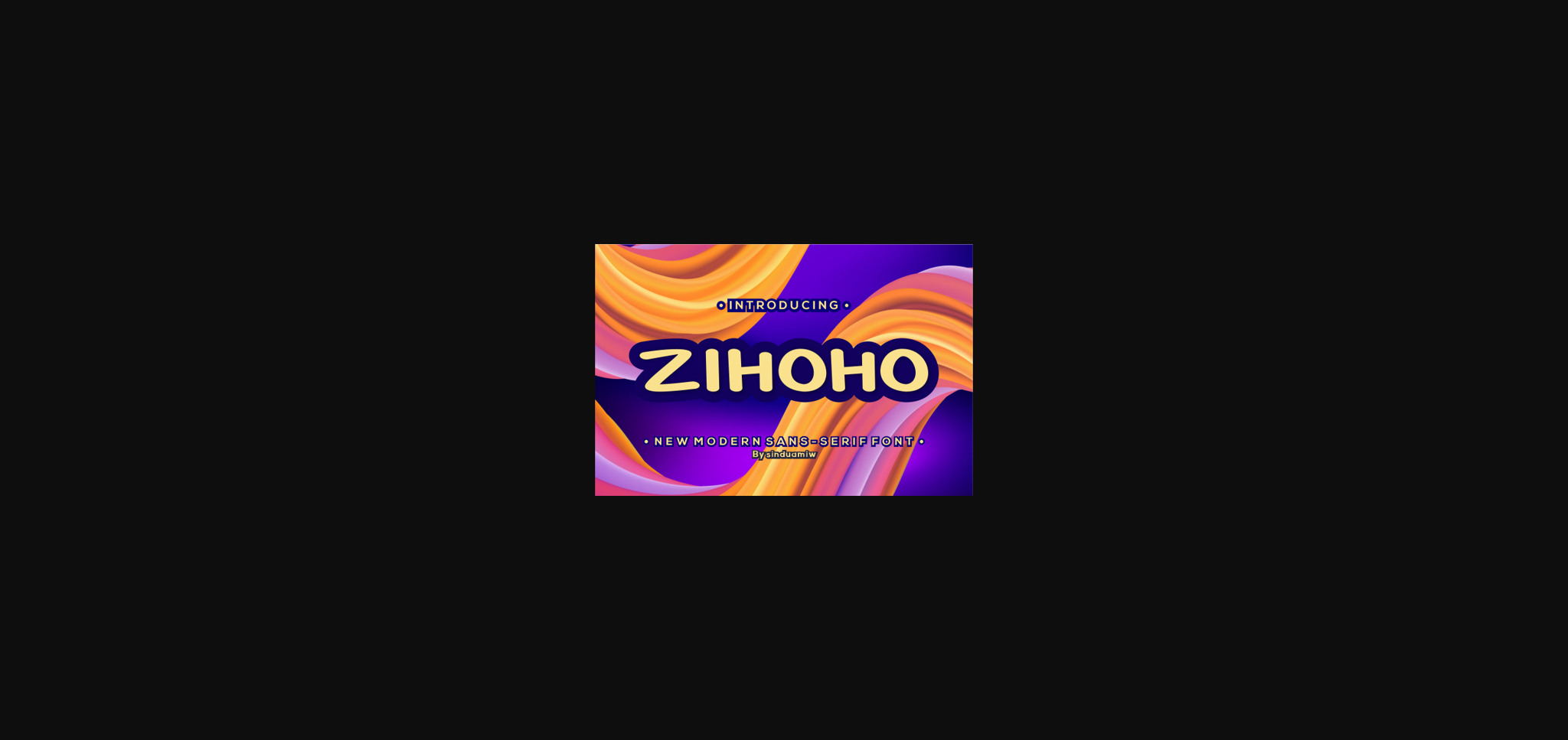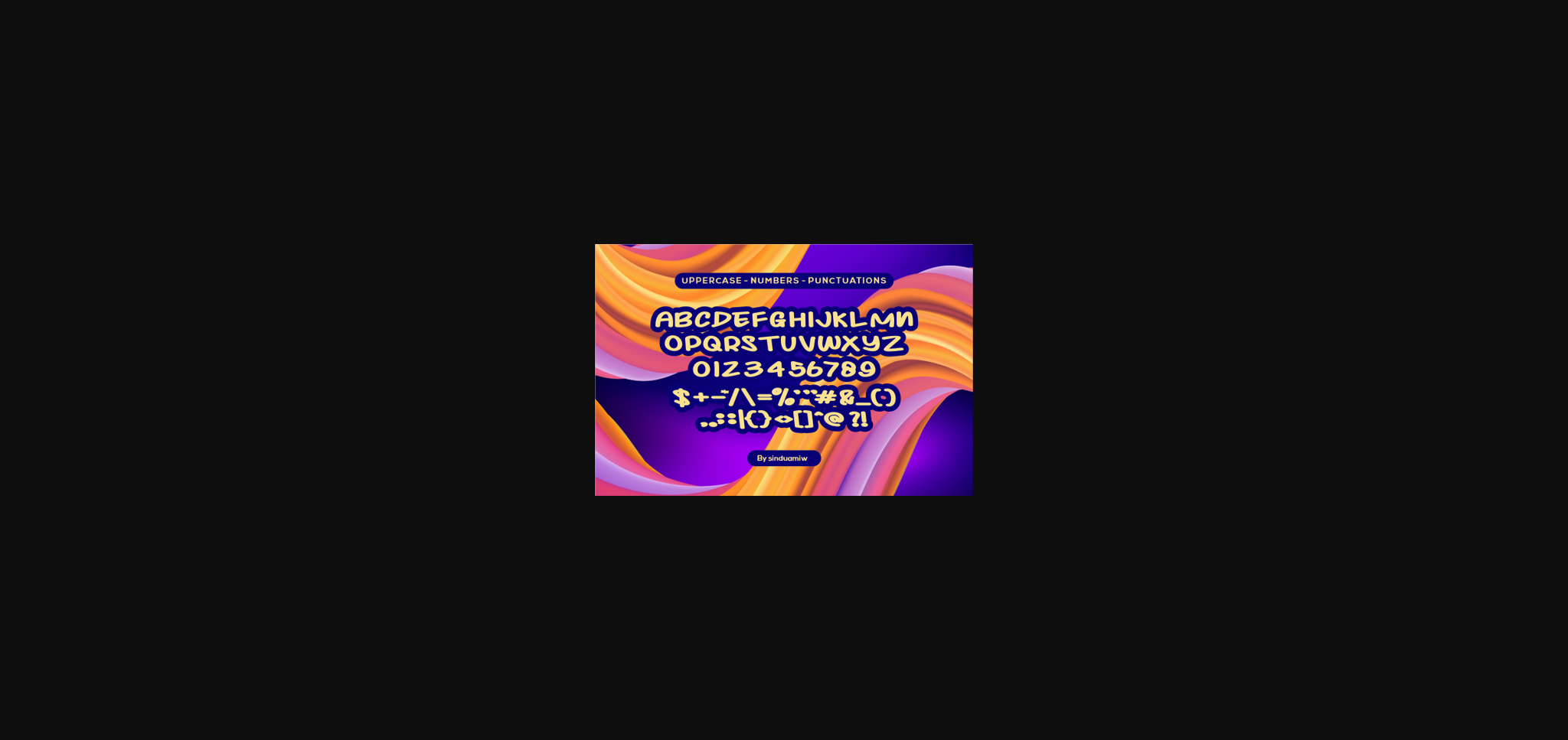
HomeSans Serif FontsZihoho Font Sans Serif Fonts Zihoho Font FacebookXPinterestWhatsApp 1 of 5 ... Zihoho Font Poster 2... Zihoho Font Poster 3... Zihoho Font Poster 4... Zihoho Font Poster 5... About Zihoho Font Zihoho is a fun and friendly sans serif font. Add it confidently to your design projects and enjoy the results! DOWNLOAD NOW People also explored Curvy Font Tuesday Font Shutterland Font Milies Duo Font Haiesley Sans Font Rock ”n Doll Happy Halloween Font Summer Paradise Font Writing Notes Font 408 0 TagsZihohoZihoho Font Previous articleCitroque FontNext articleSportfit Font LEAVE A REPLY Cancel reply Comment: Please enter your comment! Name:* Please enter your name here Email:* You have entered an incorrect email address! Please enter your email address here Website: Save my name, email, and website in this browser for the next time I comment. Personal Use Free Sushi Day Personal Use Free Read more about this font BD Lofi Personal Use Free Read more about this font BD Algebra Personal Use Free Read more about this font Miss Love Personal Use Free Read more about this font BLOG Using Fonts in Digital Marketing: Tips to Strengthen Your Brand Identity In the realm of digital marketing, every visual element plays a crucial role in shaping a brand's identity, and fonts are no exception. The... Where to Buy American Fonts Online in 2024 5 Fonts That Will Dominate Design Trends in 2026 Free Fonts Risk: Why Free Fonts Can Be Dangerous for Designers